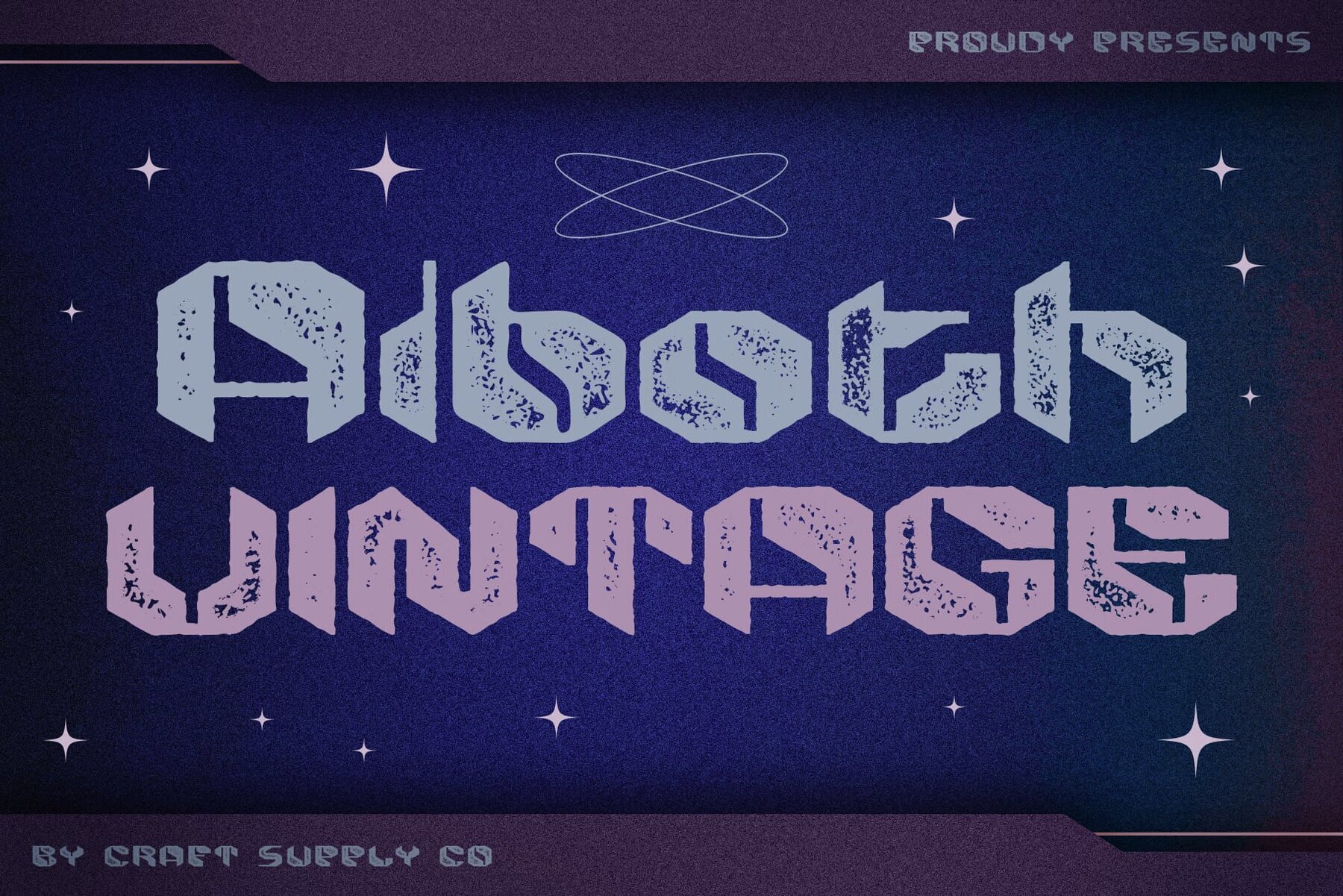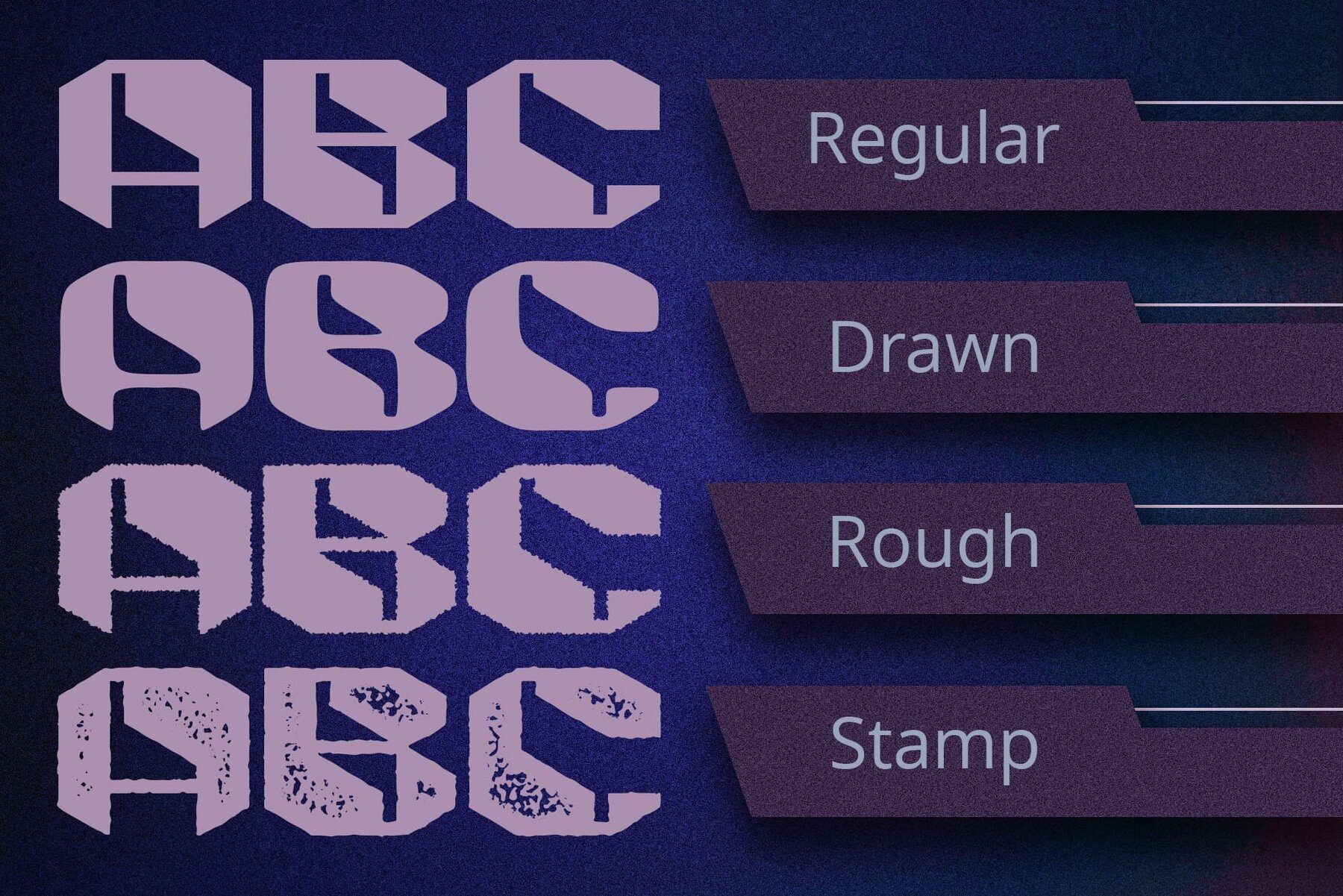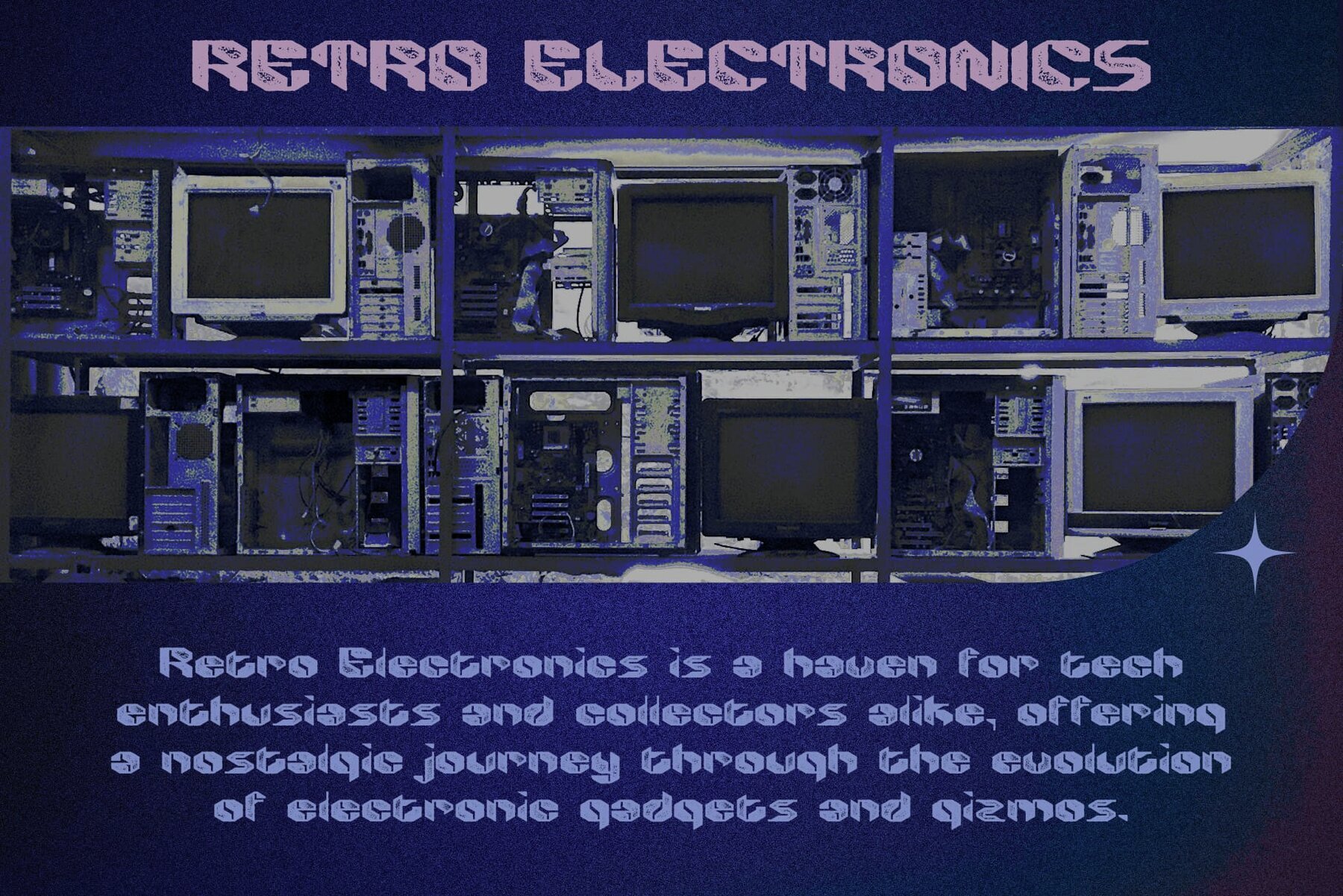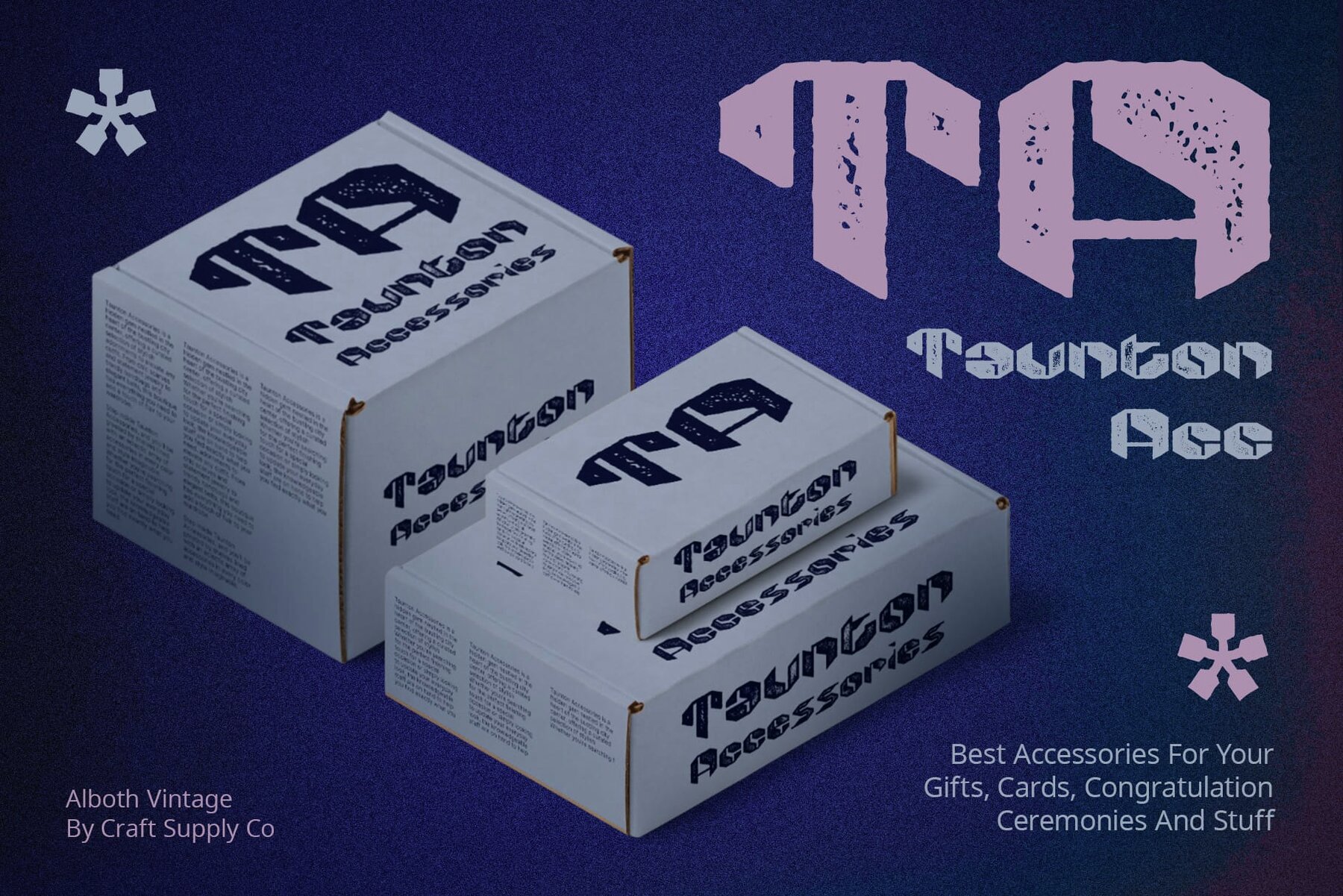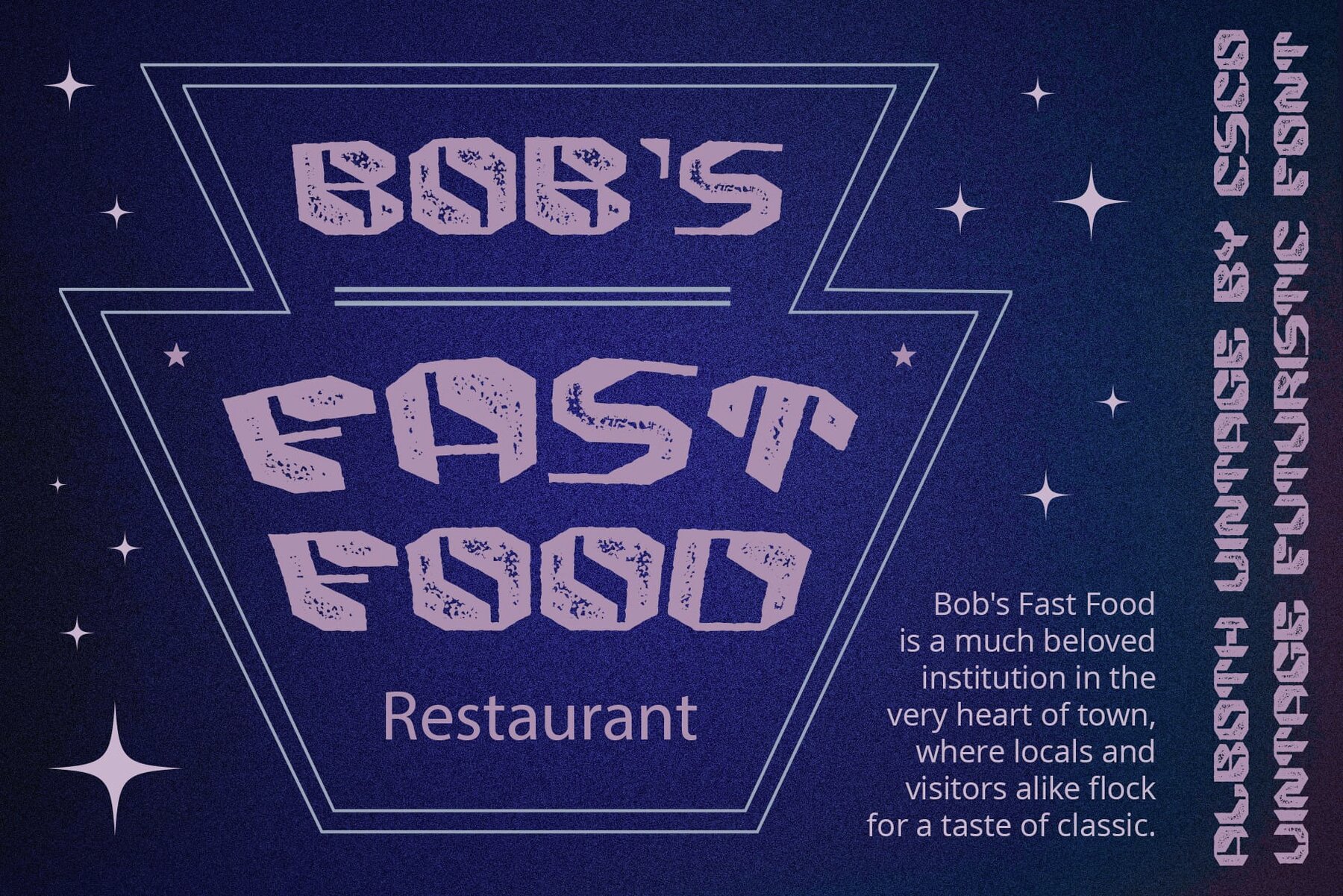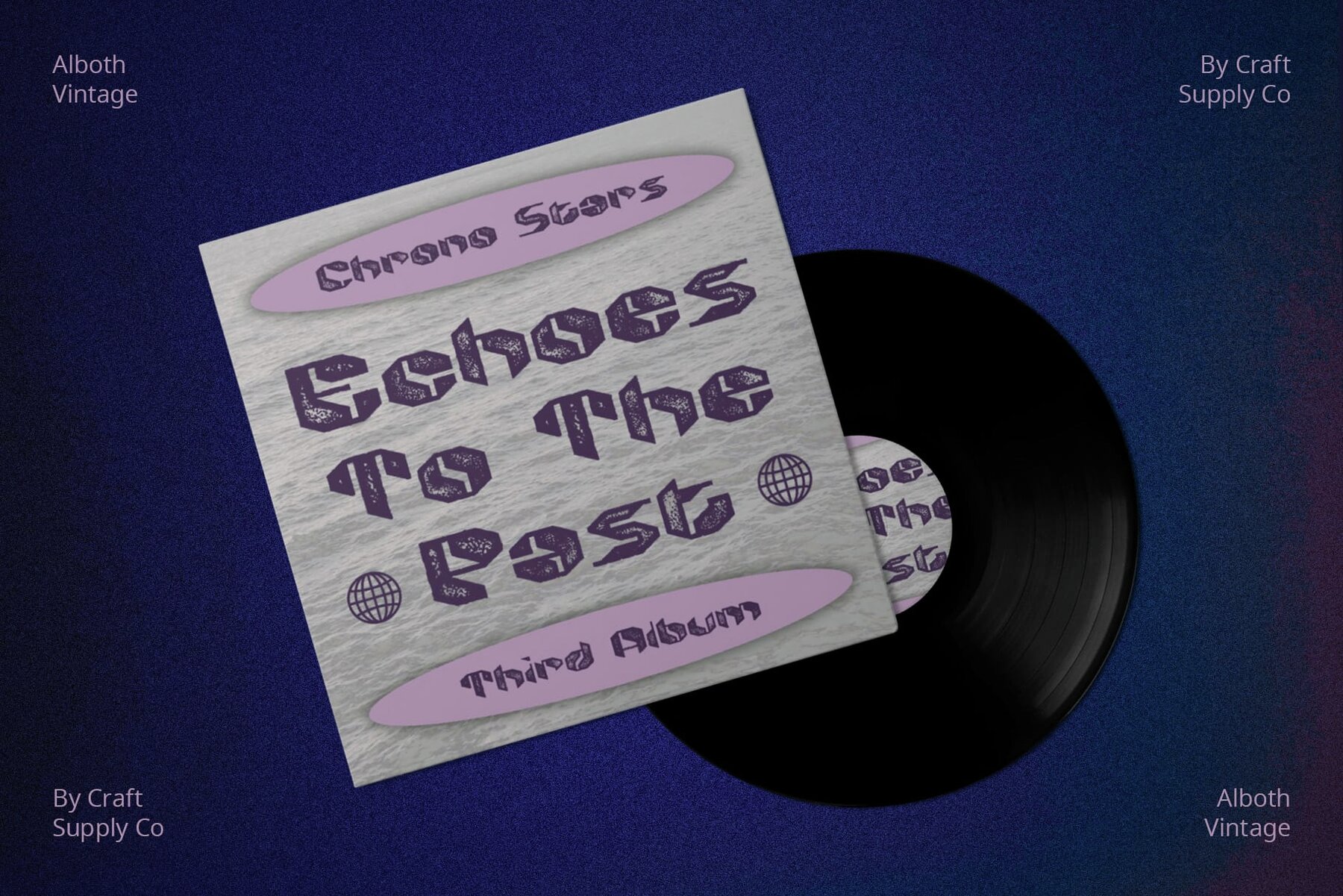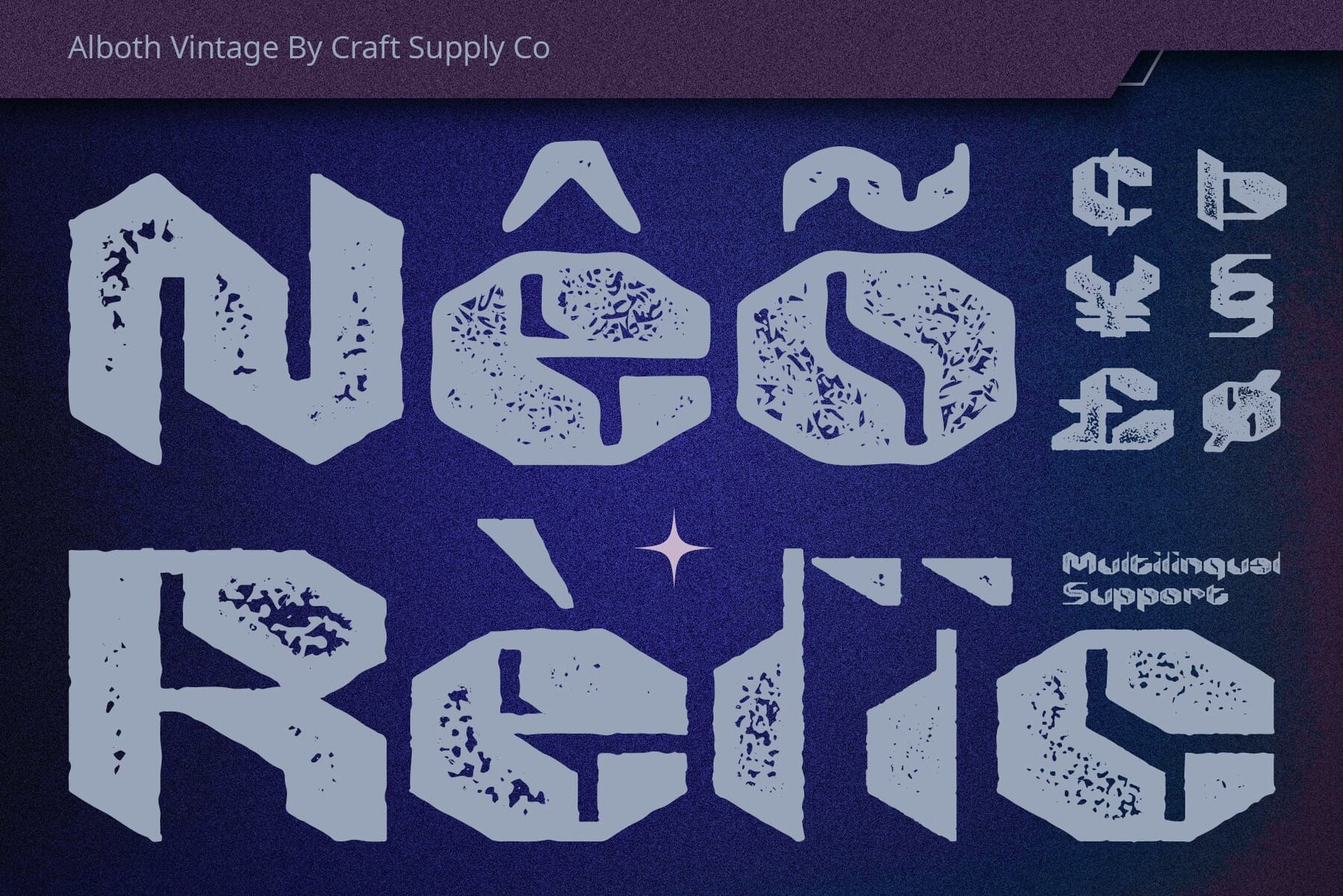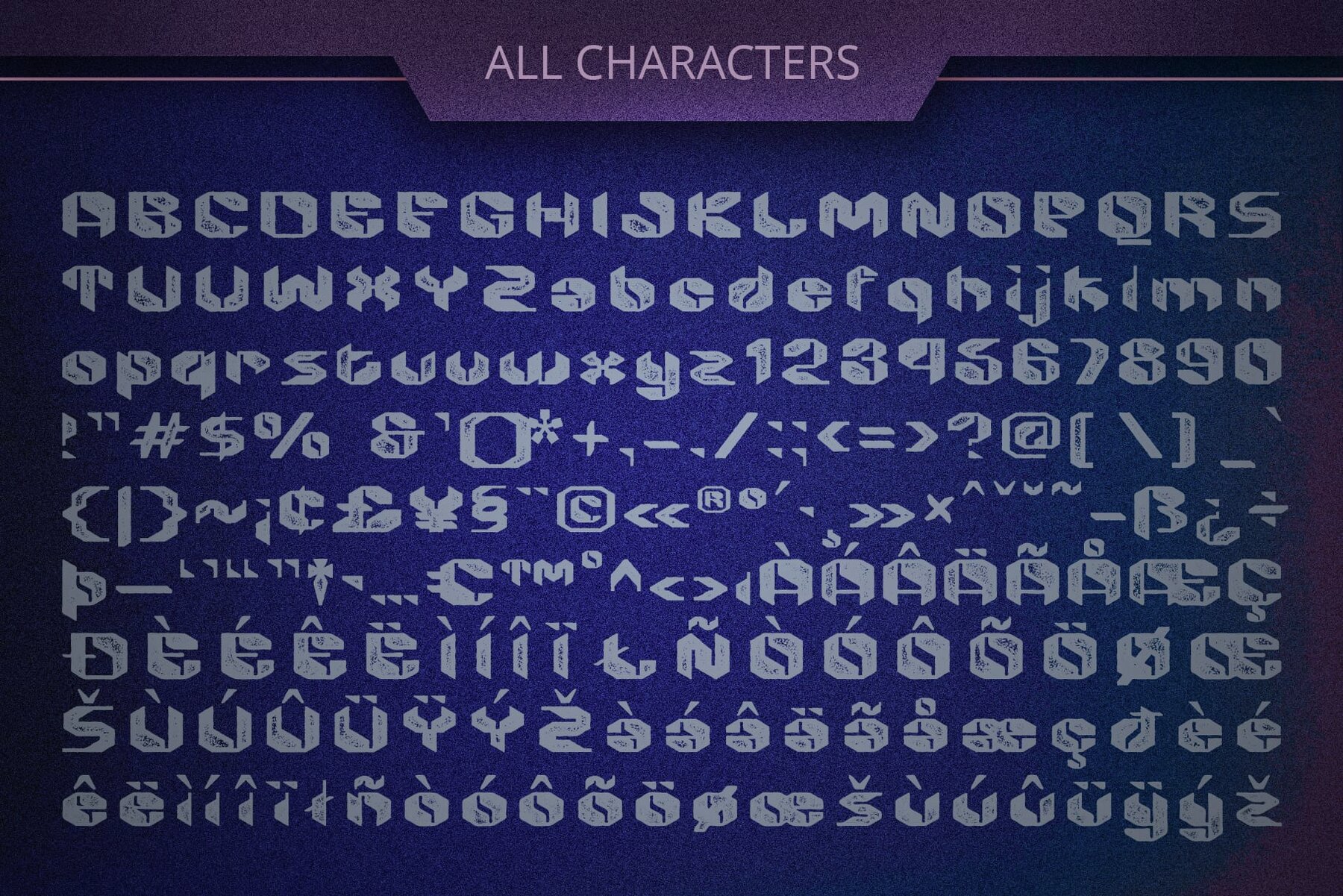
Alboth Vintage Font
Alboth Vintage draws inspiration from geometric shapes and the sleek lines of robots, resulting in a futuristic and eye-catching design. This font features vintage stamp, drawn, and rough effects, exuding a sense of nostalgia and authenticity that adds character and texture to your designs. Ideal for display purposes, its bold and distinctive appearance is perfect for making statements in headlines, logos, posters, and more.
Despite its vintage-inspired design, Alboth Vintage is versatile enough for various design projects, from branding and packaging to digital and print media. Combining futuristic geometric shapes with vintage effects, this font captures both the past and the future, making it a valuable asset for designers aiming to infuse their projects with retro charm and modern flair. Features include uppercase and lowercase characters, numerals and punctuation (OpenType Standard), accents supporting multilingual characters, and PUA encoding.